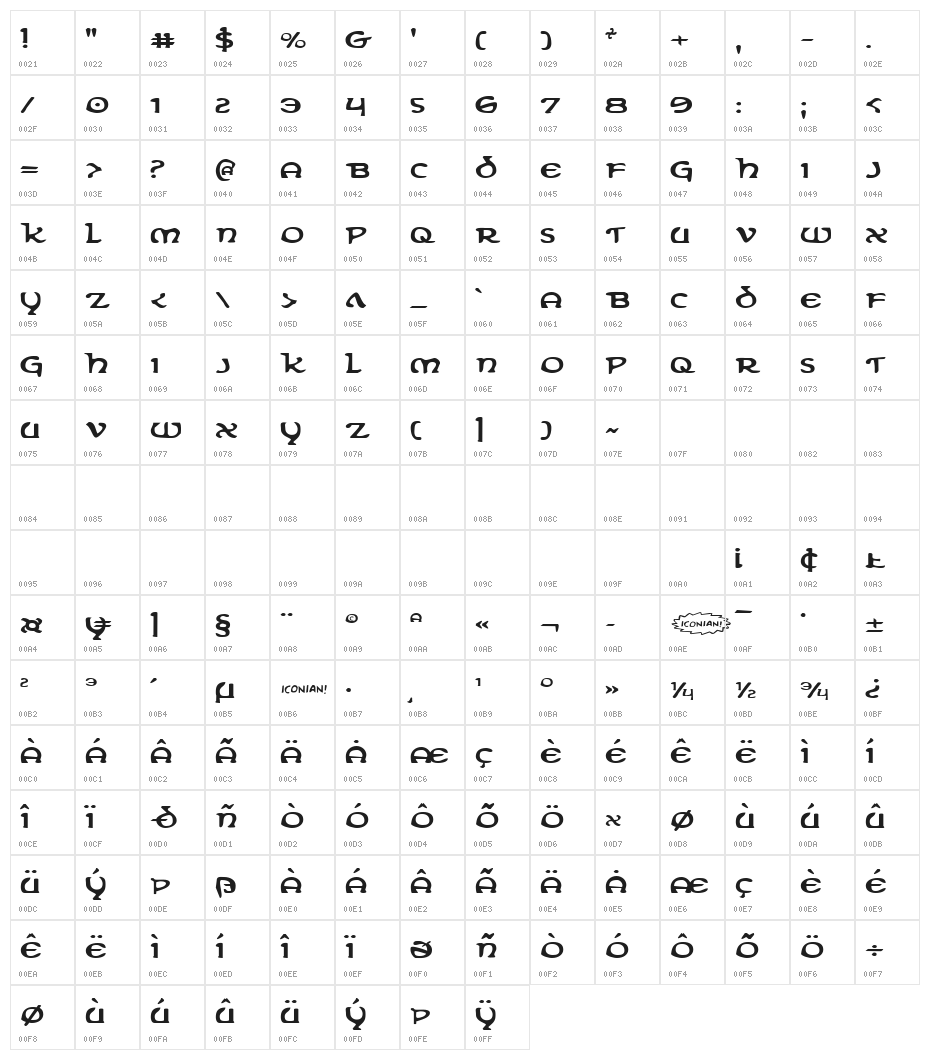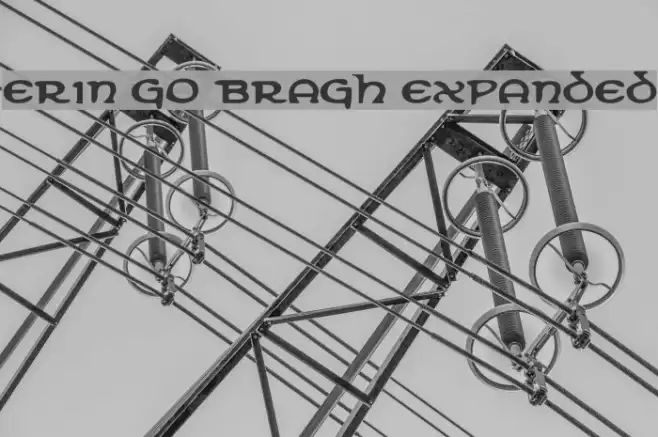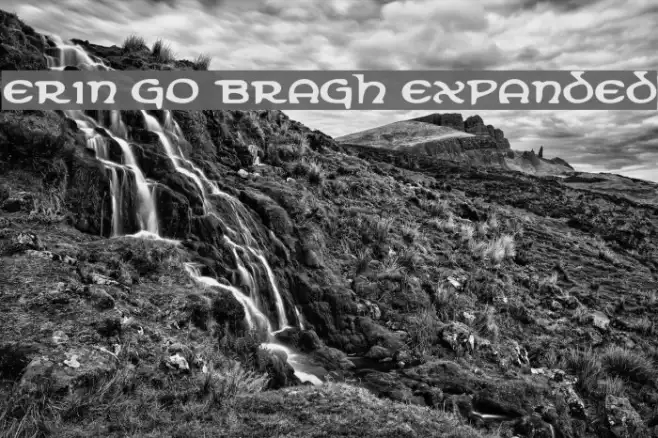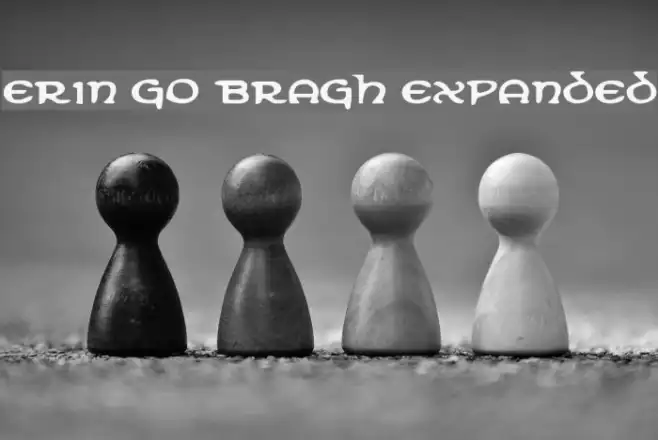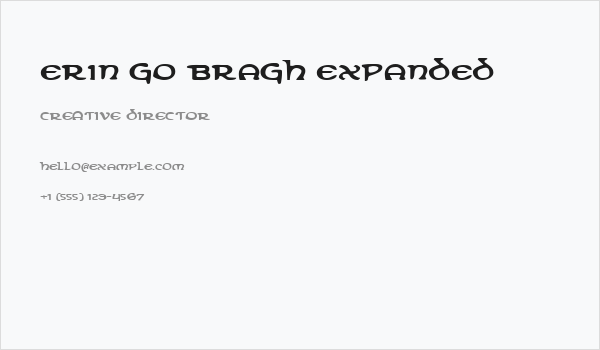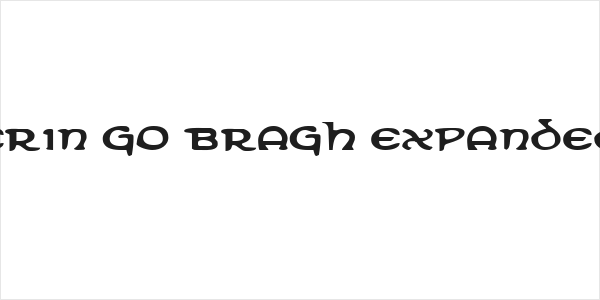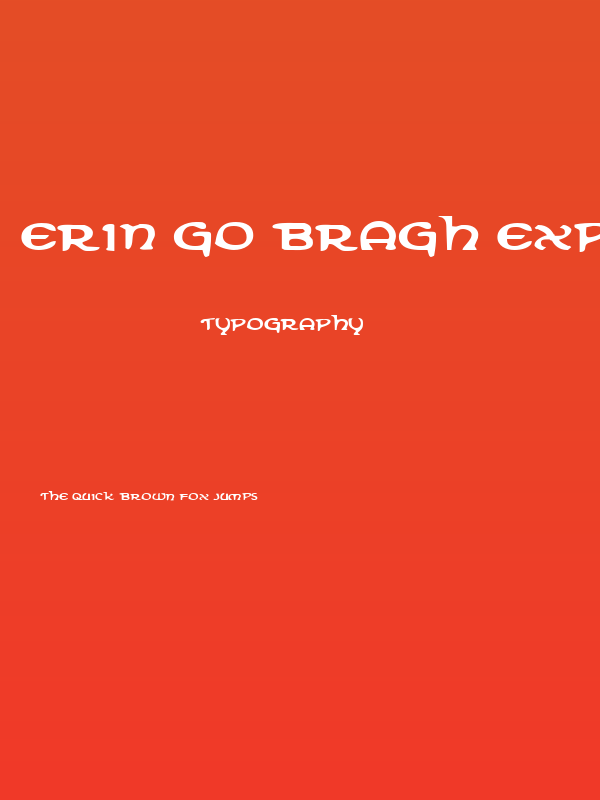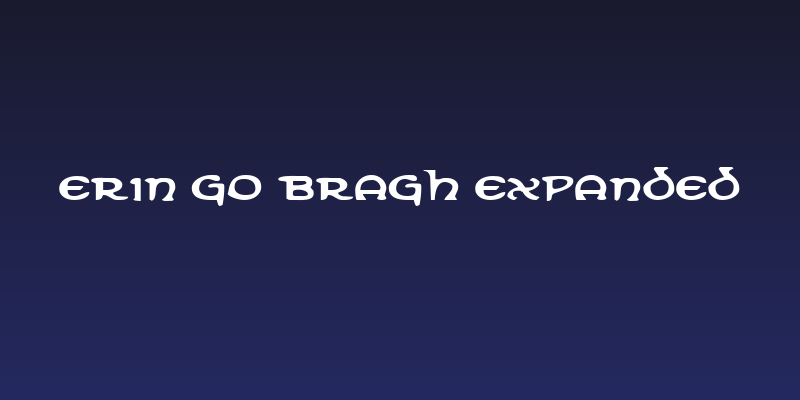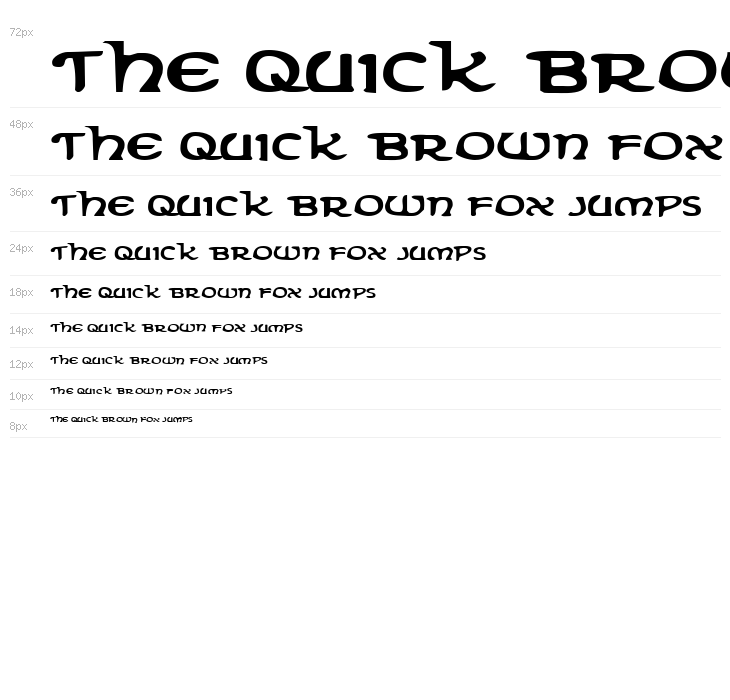
Erin Go Bragh Expanded Font
Erin Go Bragh Expanded Description
This font features a unique and decorative style with a strong Celtic influence, characterized by its bold and artistic letterforms. The uppercase and lowercase letters exhibit a consistent design with intricate curves and distinct serifs that give it a historical and cultural flair. The numerals and special characters maintain the same decorative theme, ensuring a cohesive look across all text elements. The overall appearance is both bold and eye-catching, making it suitable for projects that require a touch of tradition and elegance.
ERIN-GO-BRAGH-EXPANDED UPPERCASE
ERIN-GO-BRAGH-EXPANDED LOWERCASE
ERIN-GO-BRAGH-EXPANDED OTHER CHARS
| Proposed Projects | Ideal for use in cultural event posters, historical themed designs, book covers, and branding that requires a traditional and artistic touch. |